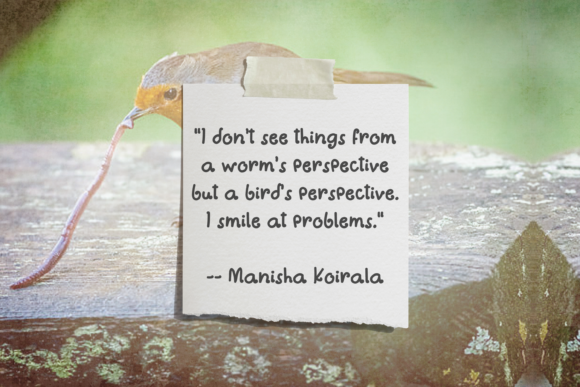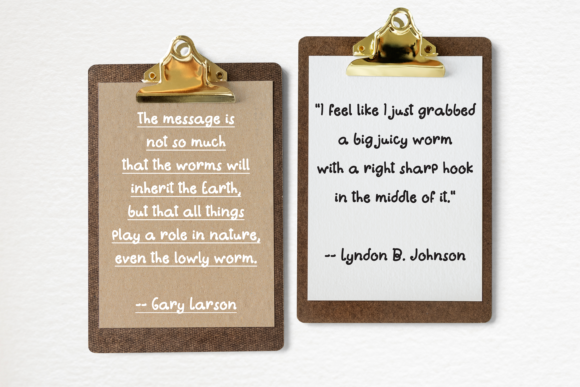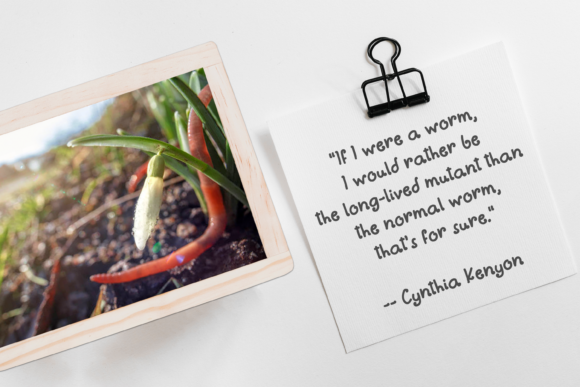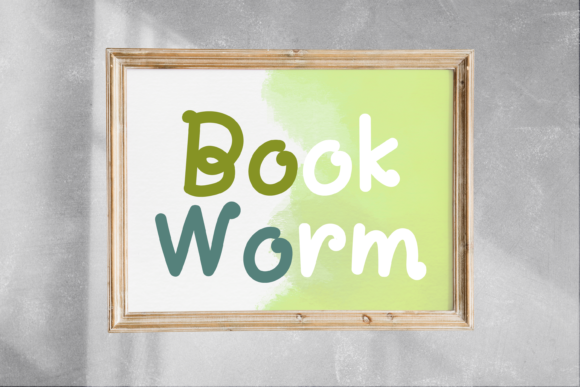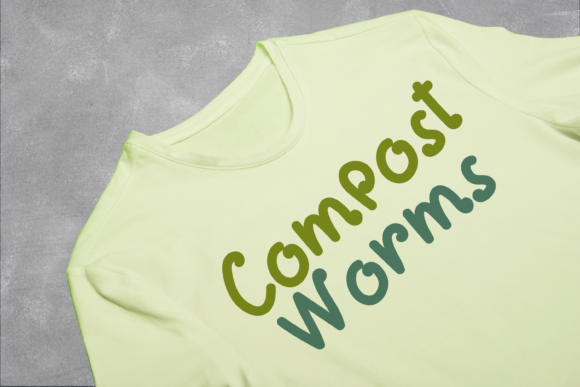
Introducing Earthworms Font: Add a Playful Twist to Your Designs
Are you tired of using the same old fonts in your design projects? Look no further than Earthworms Font, a playful and funny handwritten font that’s sure to add a bounce to your designs. With its incredibly bouncing feel, Earthworms Font is the perfect way to turn any design project into a standout. In this article, we’ll take a closer look at Earthworms Font, its features, and how you can use it to take your designs to the next level.
What is Earthworms Font?
Earthworms Font is a unique and creative handwritten font that’s designed to add a playful touch to your designs. Its bouncing feel is reminiscent of a carefree summer day, making it perfect for designs that require a lighthearted and fun approach. Whether you’re working on a branding project, a children’s book, or a craft project, Earthworms Font is sure to bring a smile to your audience’s face.
Key Features of Earthworms Font
- Playful and Funny: Earthworms Font is designed to be playful and funny, making it perfect for designs that require a lighthearted approach.
- Handwritten: Earthworms Font is a handwritten font, giving it a personal and unique touch.
- Bouncing Feel: The font’s bouncing feel is sure to add energy and movement to your designs.
- Versatile: Earthworms Font can be used in a variety of design projects, from branding and advertising to children’s books and crafts.
How to Use Earthworms Font in Your Designs
Using Earthworms Font in your designs is easy. Here are a few tips to get you started:
- Pair it with Other Fonts: Earthworms Font pairs well with other fonts, making it easy to create a unique and interesting design. Try pairing it with a bold font for a striking contrast.
- Use it in Headlines: Earthworms Font is perfect for headlines and titles, where its playful and bouncing feel can really shine.
- Add it to Your Branding: Earthworms Font can add a playful touch to your branding, making it perfect for companies that want to stand out from the crowd.
- Use it in Children’s Designs: Earthworms Font is perfect for children’s books, crafts, and other designs that require a fun and playful approach.
Benefits of Using Earthworms Font
There are many benefits to using Earthworms Font in your designs. Here are a few:
- Unique and Creative: Earthworms Font is a unique and creative font that’s sure to set your designs apart from the crowd.
- Easy to Read: Despite its playful feel, Earthworms Font is easy to read, making it perfect for designs that require a clear and concise message.
- Versatile: Earthworms Font can be used in a variety of design projects, making it a great addition to your font library.
- Fun and Engaging: Earthworms Font is sure to add a fun and engaging touch to your designs, making it perfect for designs that require a lighthearted approach.
Earthworms Font is a playful and funny handwritten font that’s sure to add a bounce to your designs. With its incredibly bouncing feel and versatile nature, it’s perfect for a variety of design projects, from branding and advertising to children’s books and crafts. Whether you’re a designer, crafter, or DIY enthusiast, Earthworms Font is a great addition to your font library. So why not give it a try and see how it can take your designs to the next level?